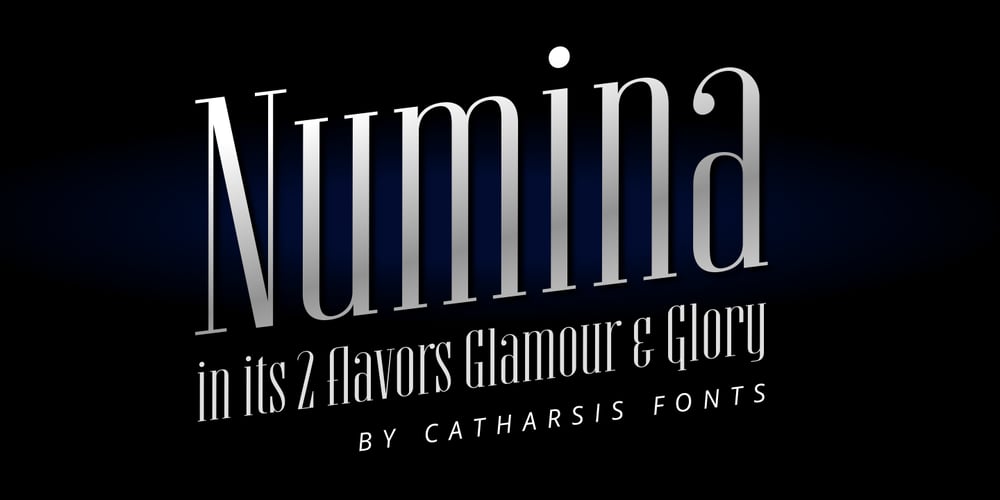
Numina
Numina font
Numina Font Family was designed by Christian Thalmann and published by Catharsis Fonts. Numina contains 16 styles and family package options. Numina is an elegant, dignified, highly condensed modern display family comprising two complementary faces. Numina Glory capitalizes on the family�s strong, relentless vertical texture, eschewing diagonals in favor of robust pillars, whereas Numina Glamour opts for more traditional letterforms for improved legibility and a classy, airy grace. Both faces are well-suited for headlines, logos, block quotes, and editorial work. Numina comes with extensive language support and OpenType features such as small caps, ligatures, and stylistic alternates. Each face comes with three additional font files at no additional cost: Oblique, Ligatures, and Ligatures Oblique. In the Ligatures fonts, all ligatures are designated as standard ligatures (rather than discretionary ones), and are therefore easily accessible even in typographically unsavvy applications. Numina is the plural of the Latin word numen, which describes the intangible aura of power and influence emanating from gods and heroes. Acknowledgements: I am grateful to the helpful souls on the Typophiles forums for their critiques and feedback, which greatly improved the font. In particular, base spacing and improvements to lettershapes were provided by Hrant H Papazian. Rainer E. Scheichelbauer provided welcome aid with technical issues. This font is dedicated to Simone.